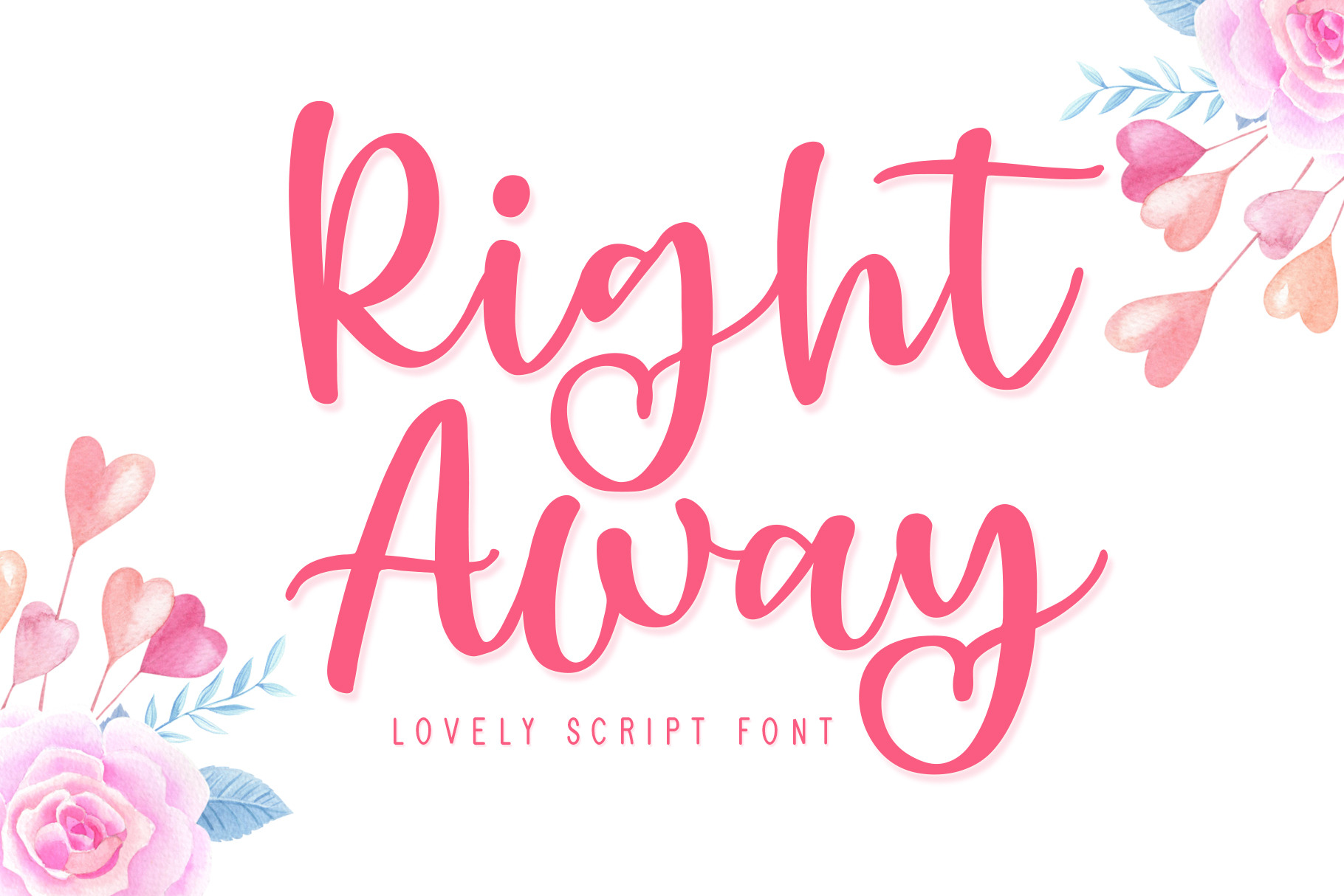
Right Away - Lovely Script Font
This font is perfect for svg designs, shirts, crafts, procreate, cricut projects, branding, blogs, logos, invitations and more!